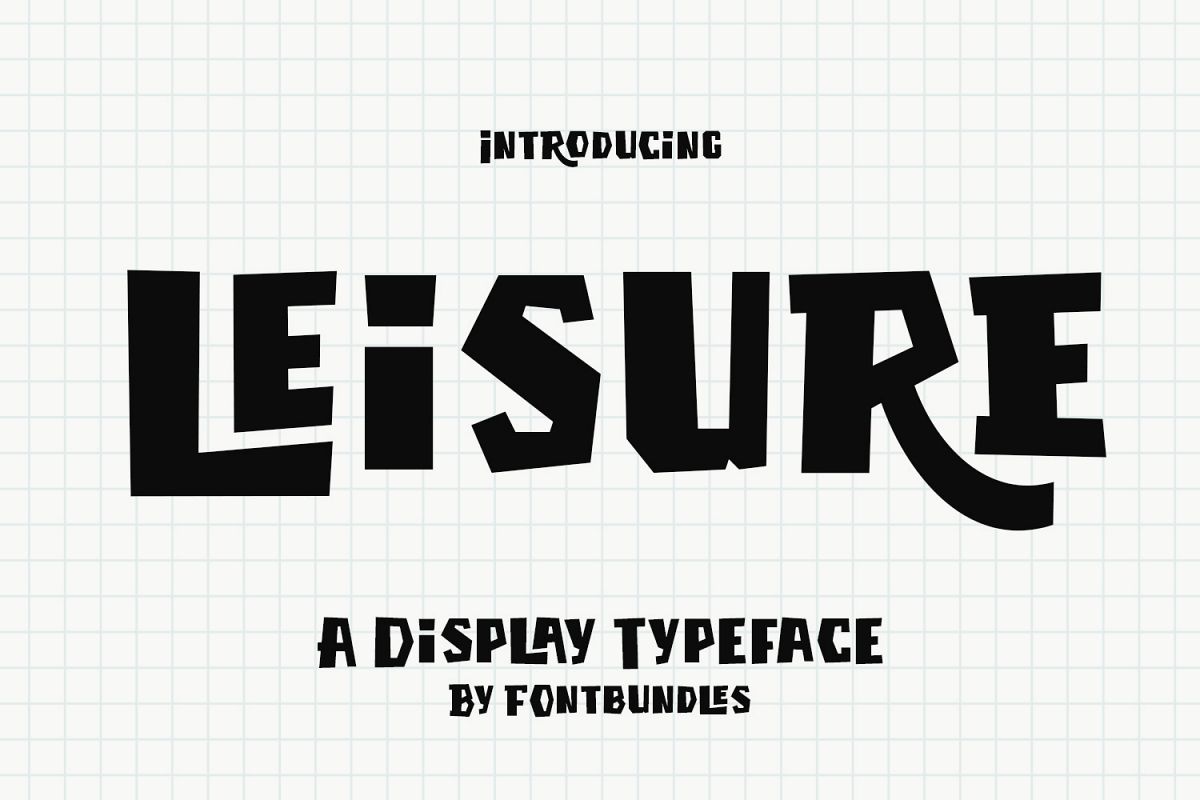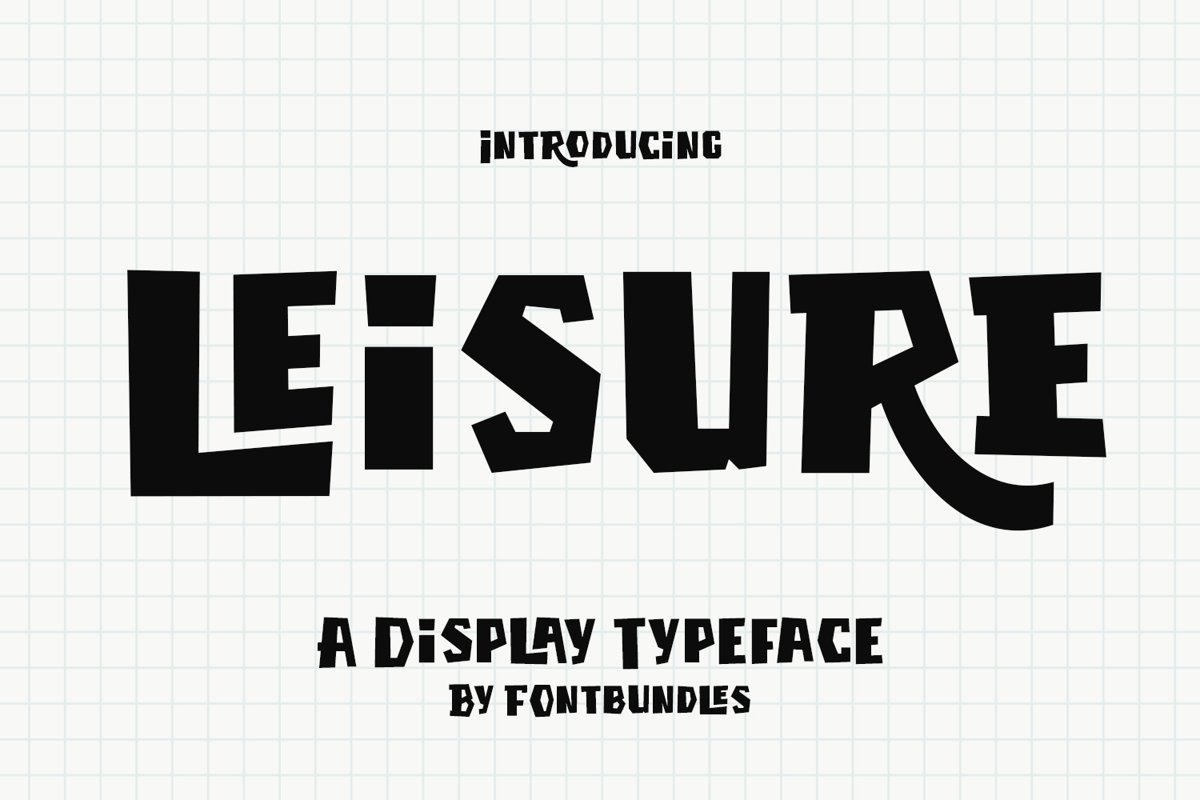
Leisure is a fun display typeface. perfect for badges, poster, branding, namecard, t-shirt print needs, promotion, logo, merchandise, banner and manymore